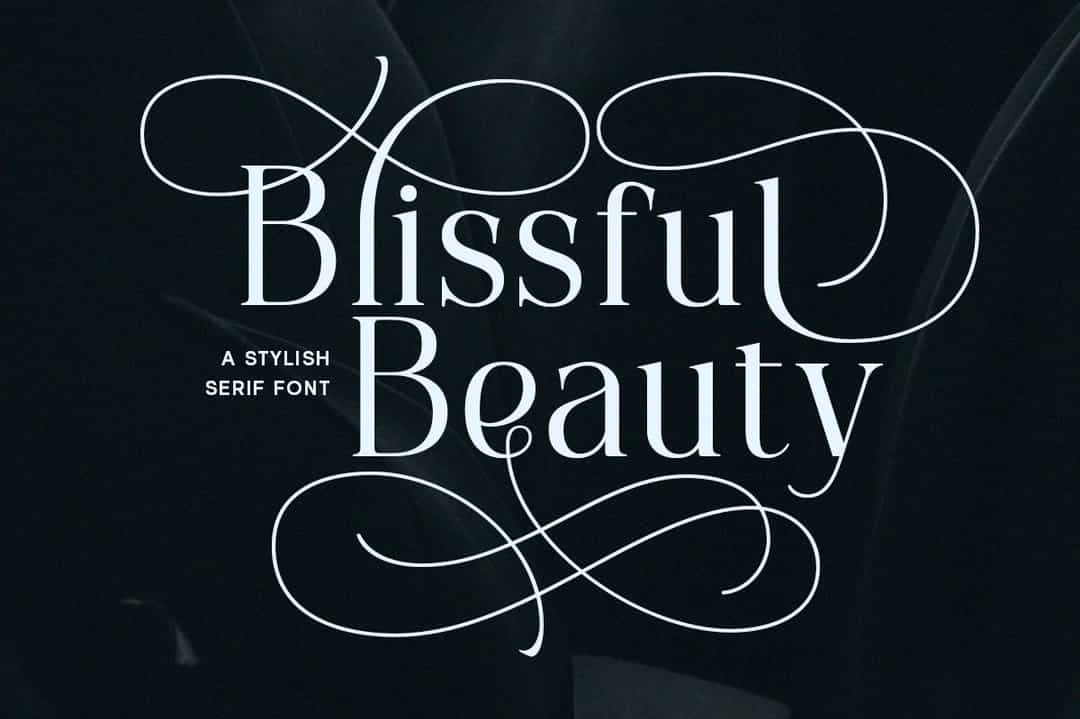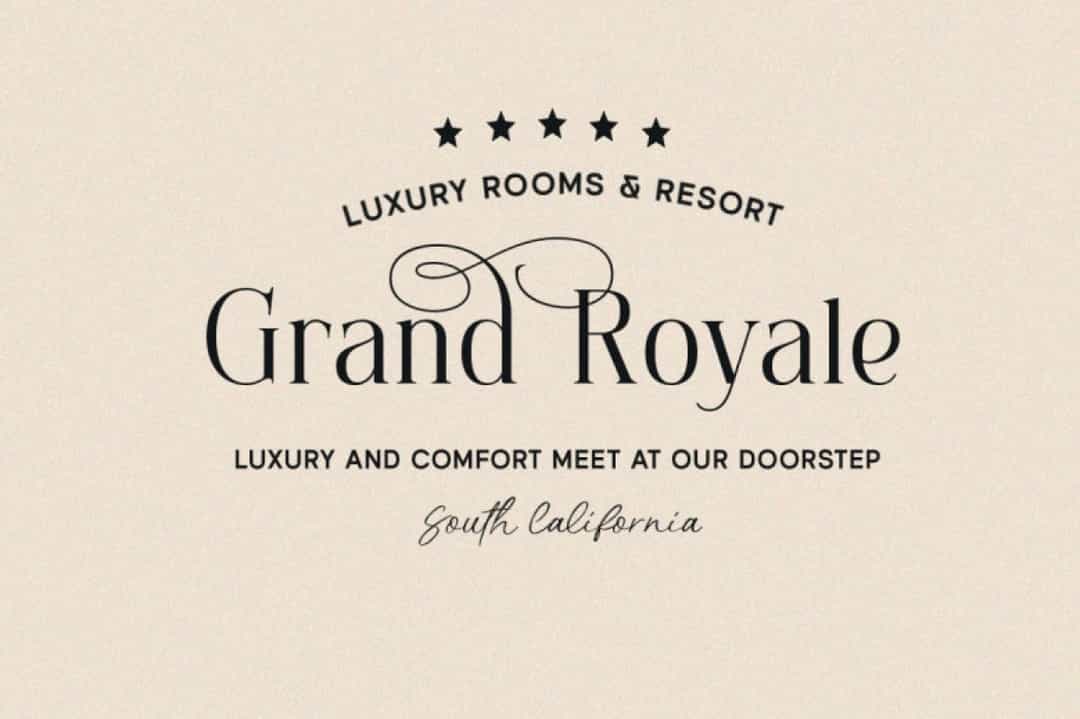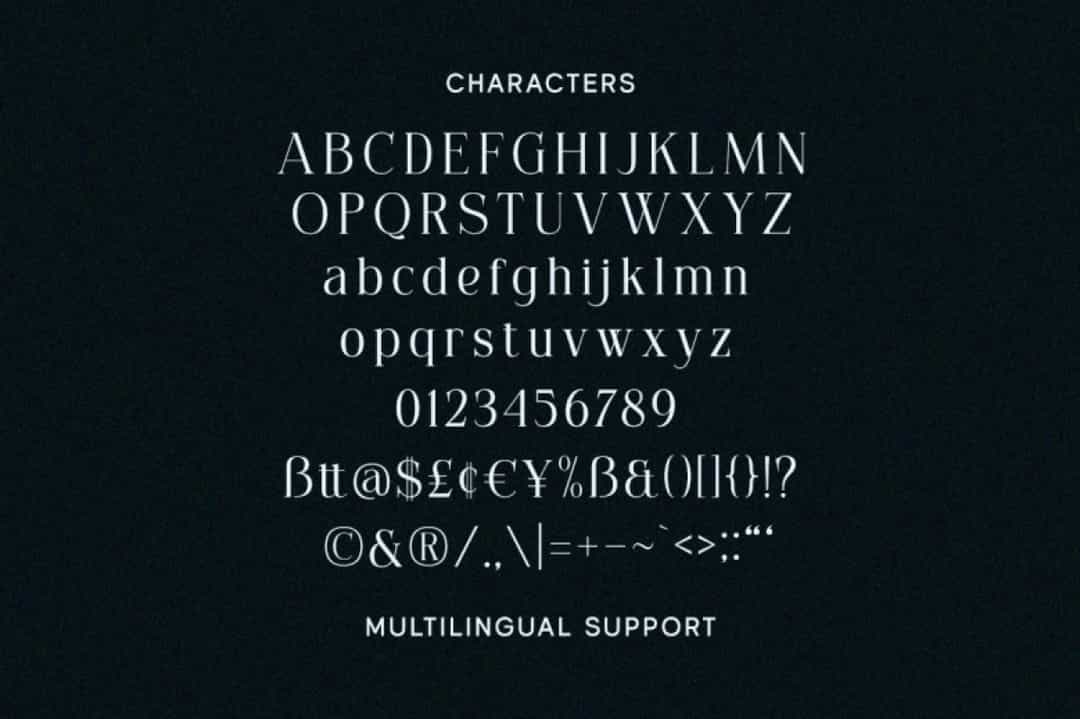
Blissful Beauty is an exquisite serif typeface with class and elegance. Featuring elegant alternates and delicate swashes, Blissful Beauty makes an outstanding choice when creating designs requiring sophisticated and elegant appearances – be it luxury branding or chic wedding cards. Blissful Beauty will certainly leave an impactful statement about yourself or your design!